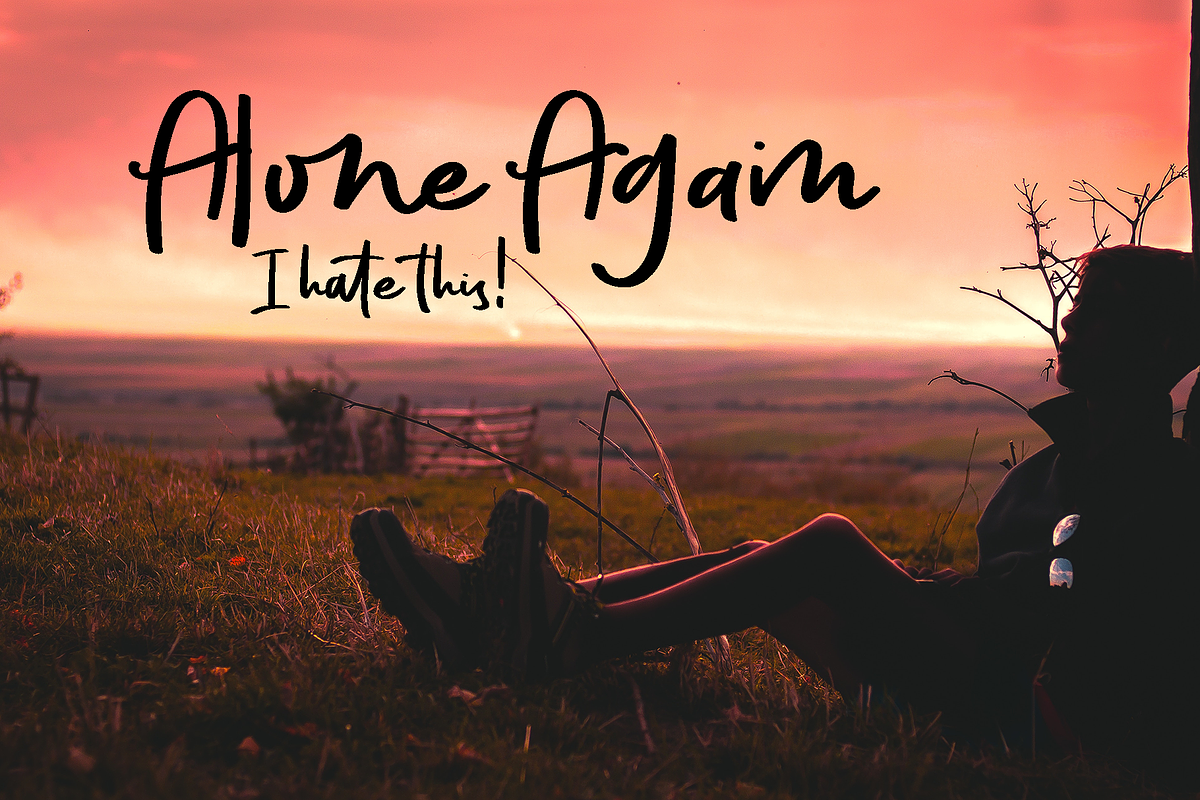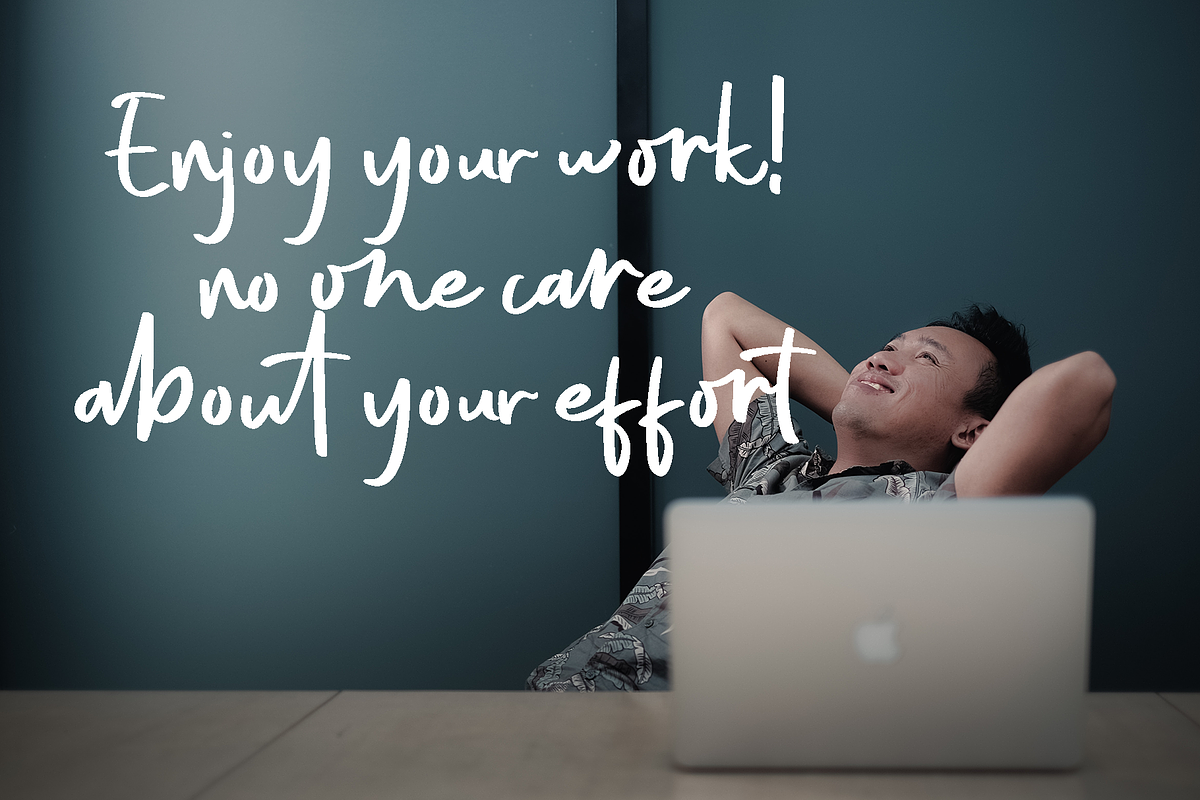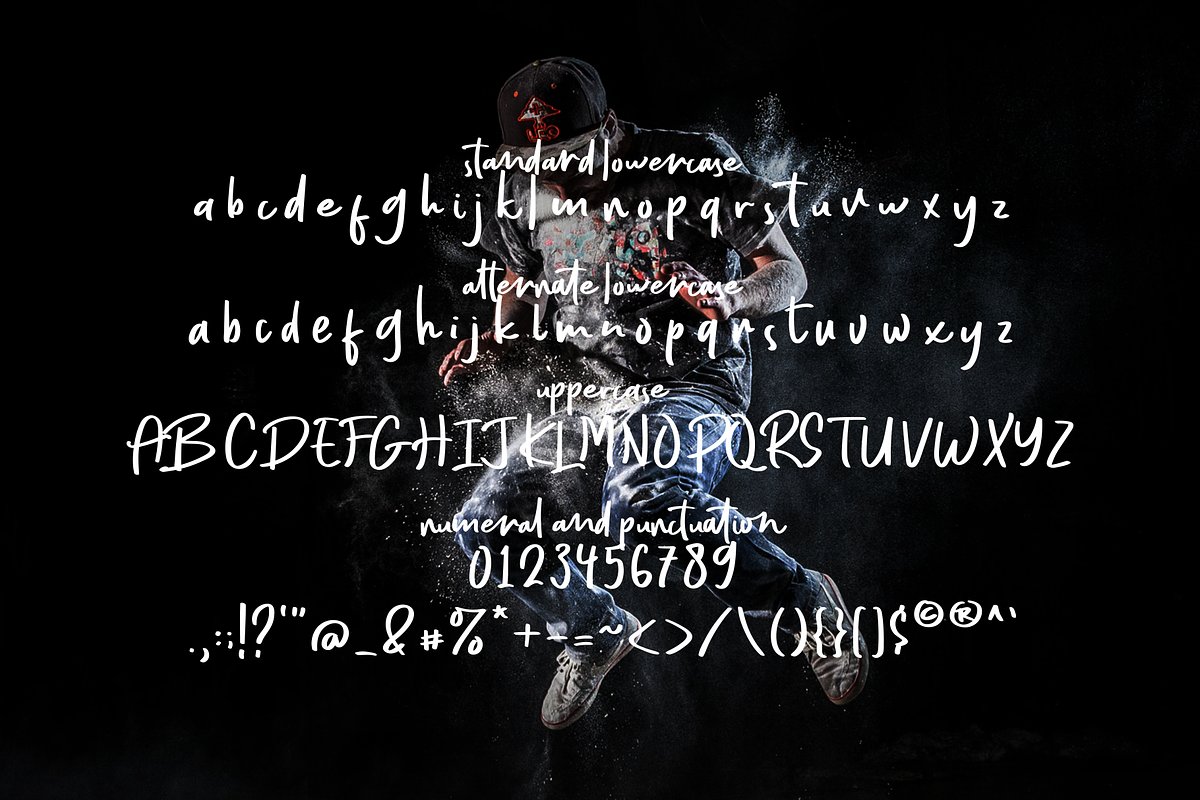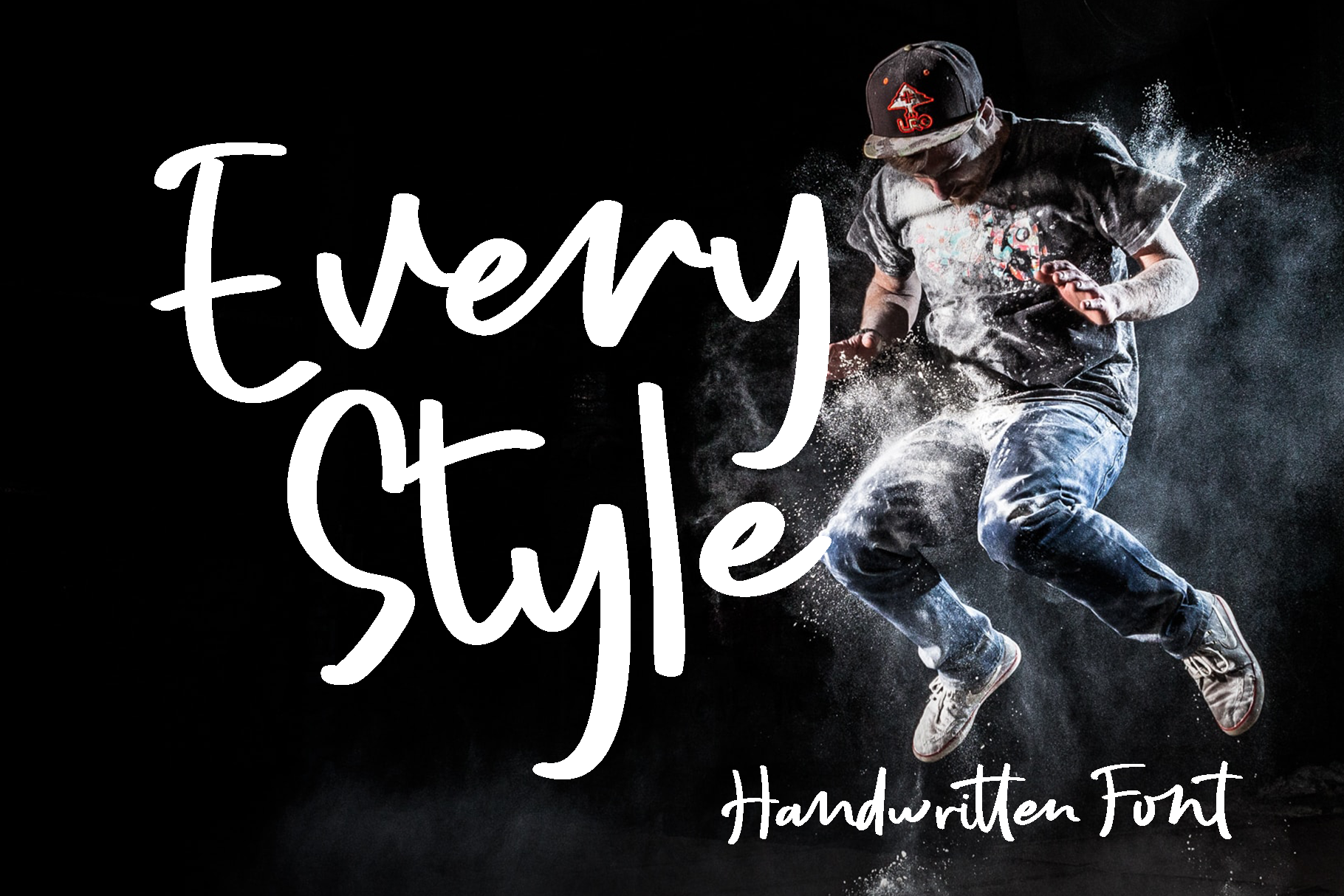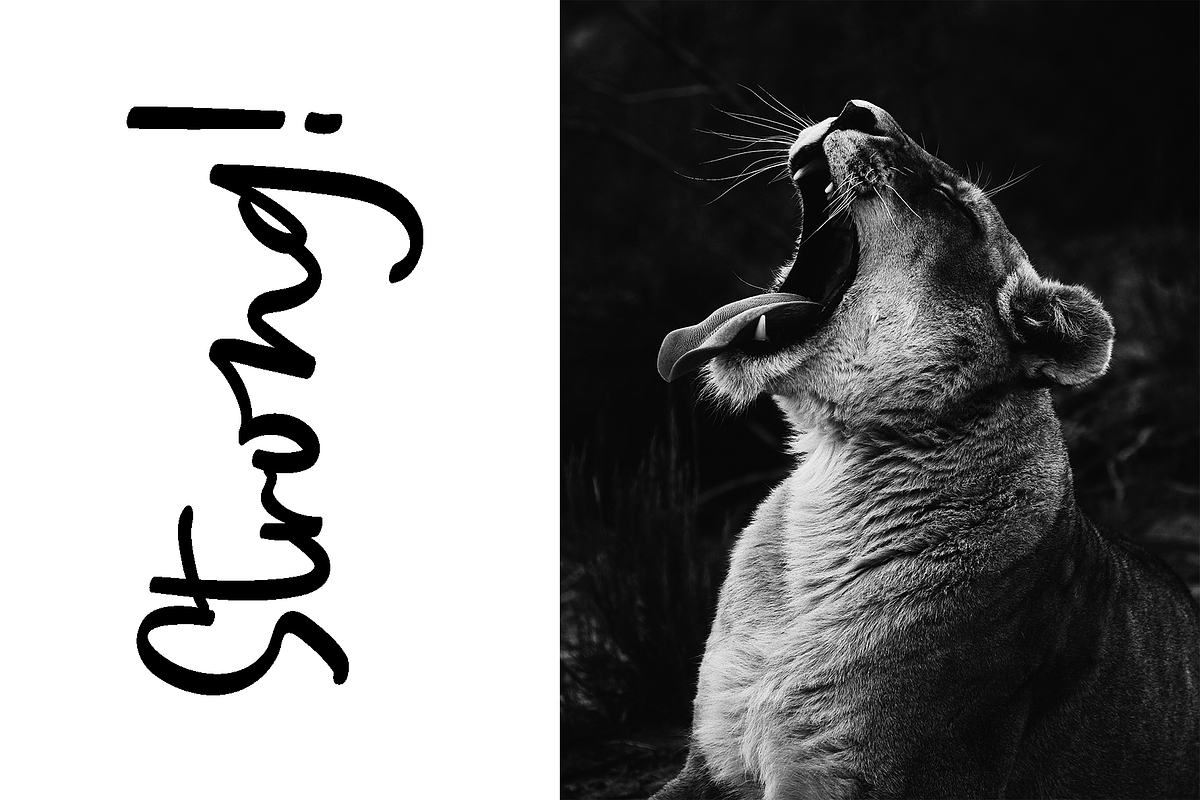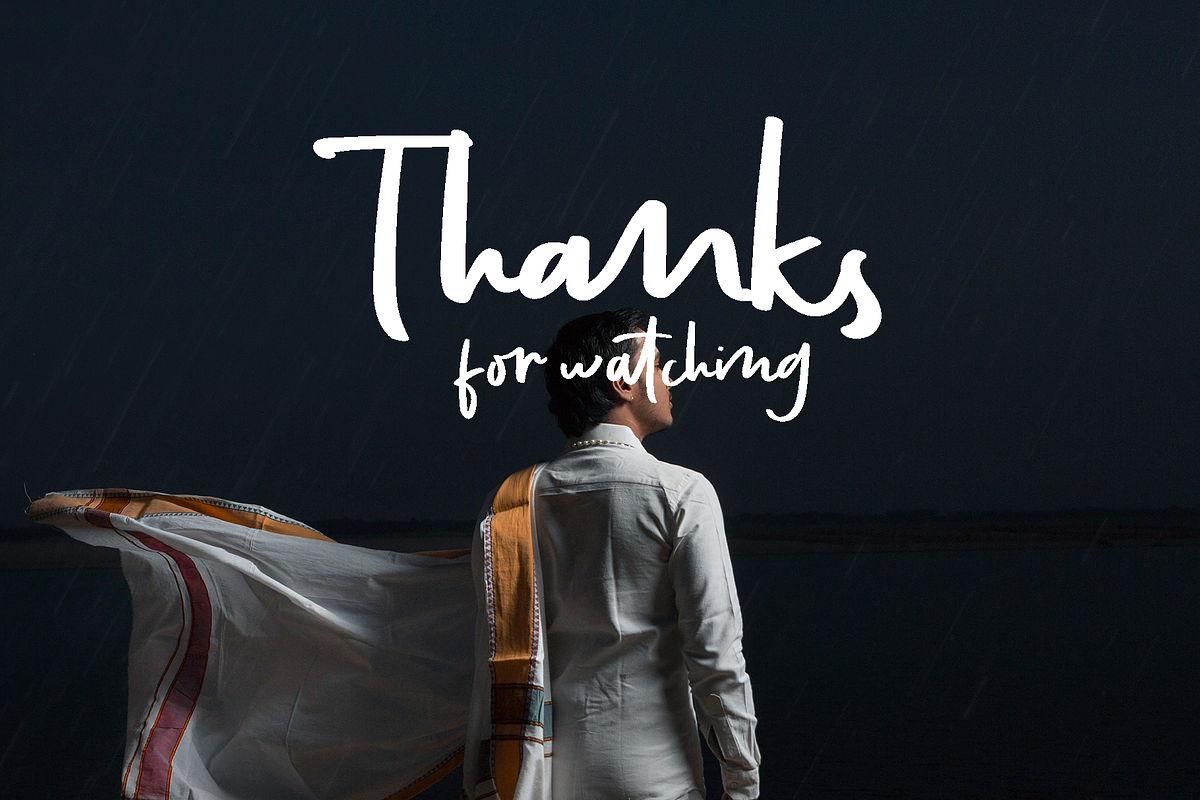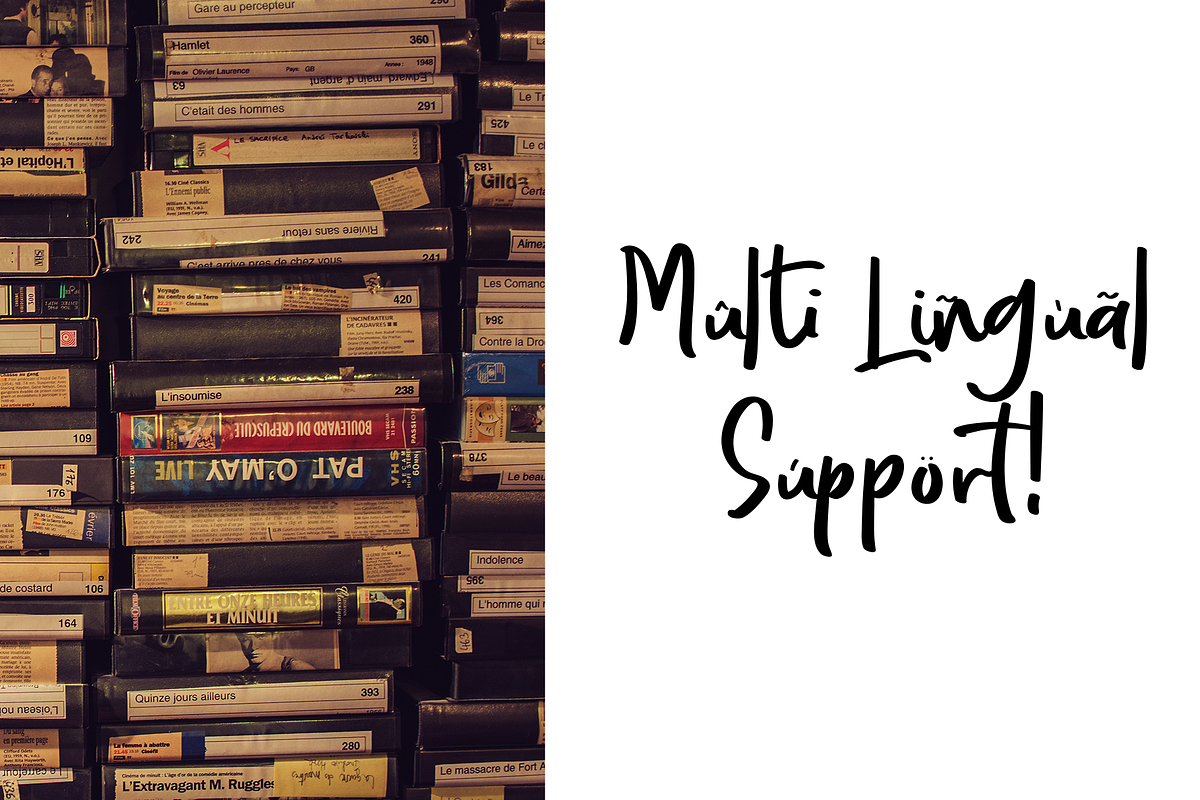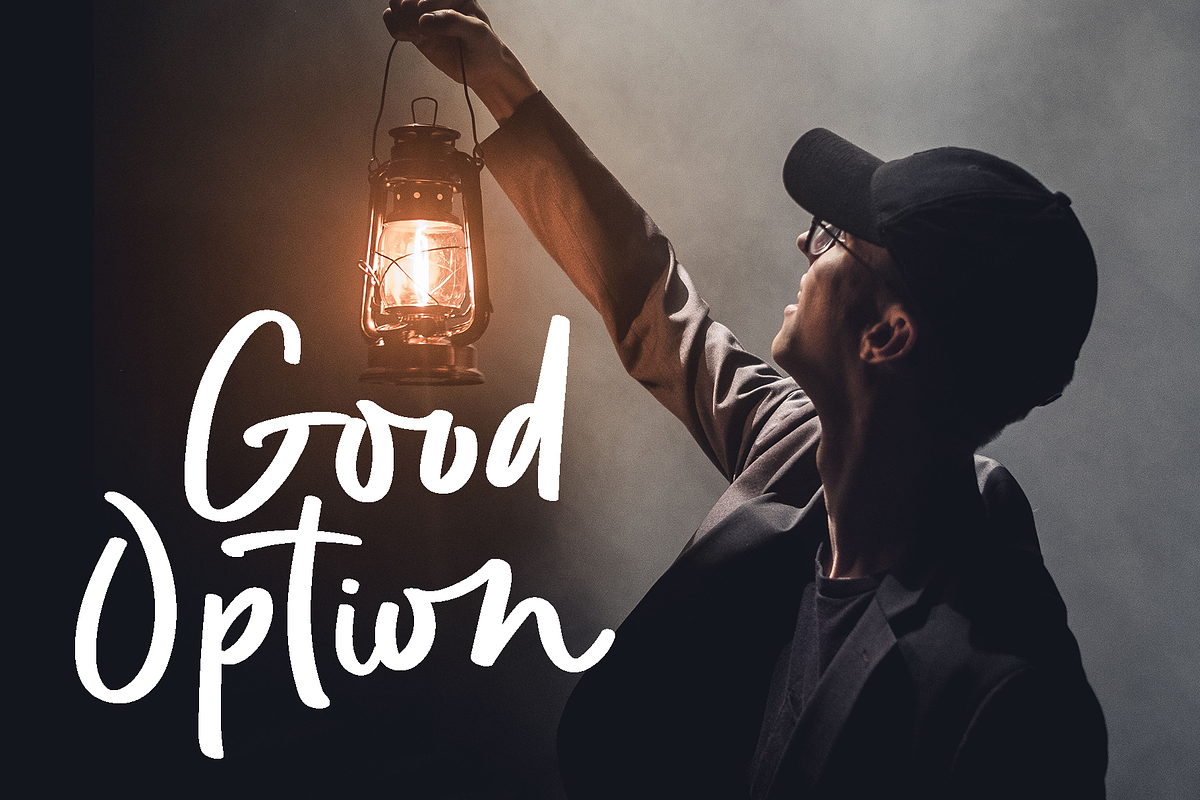
Every Style - NEW!! handwritten font
Every Style Font is a handwritten script font with a simple and natural style, this font is great for your next creative projects such as watermark on photography, quotes, album cover, logo, business card, and many other design project.
Every Style comes with uppercase letters, lowercase alternative letters, numbers, punctuation, ligature and multi lingual support